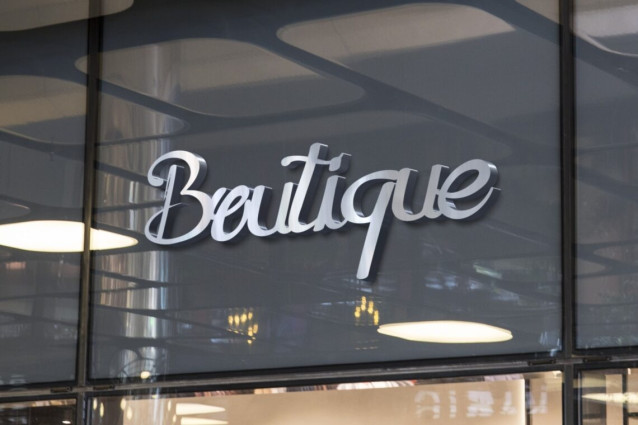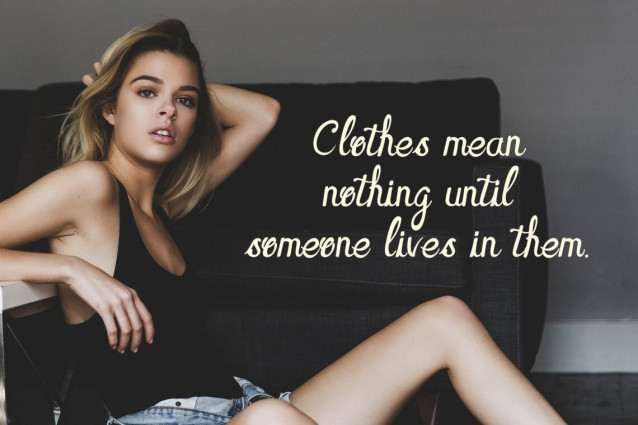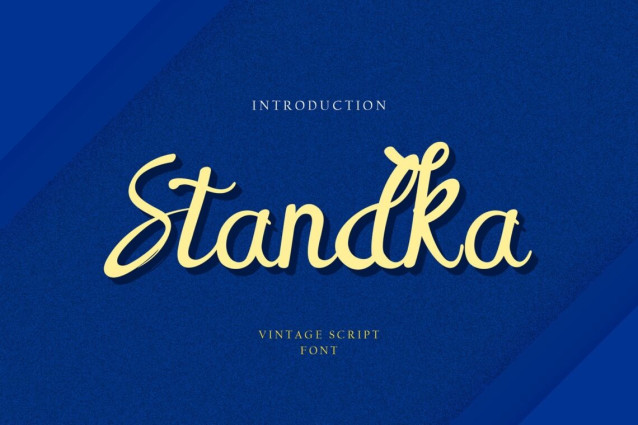
Standka Handwritten Font is a type of font inspired by a more modern hand sweep. has a circular effect and a typical calligraphy curve makes this font look attractive and elegant. This font is inspired by the legendary writing of American products. The combination of text, numbers, and punctuation is different from the font but still in one harmonious style. Of course, this font is very suitable for various projects and branding, such as quotes, invitations, cards, product packaging, headers, T-shirts, magazines, leaflets, posters, etc.